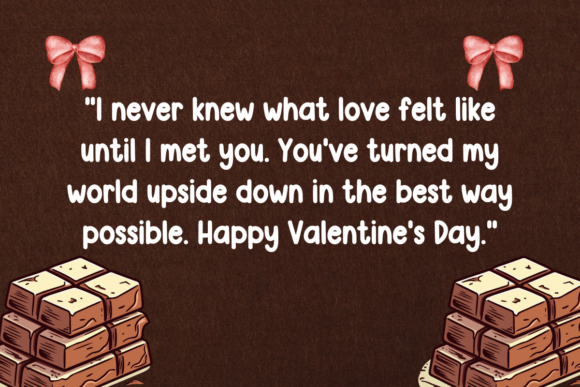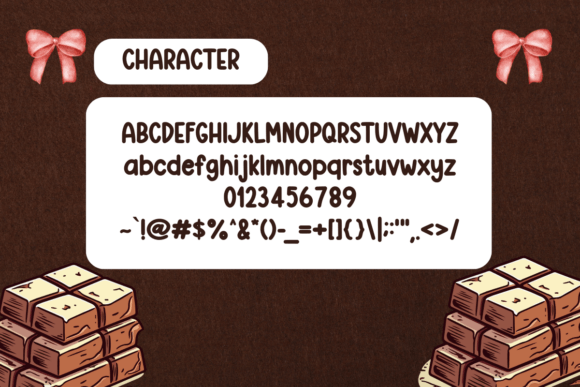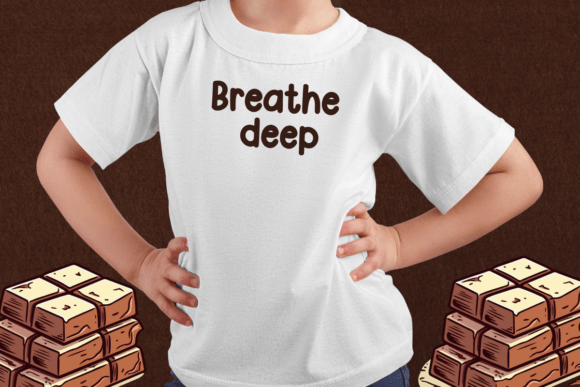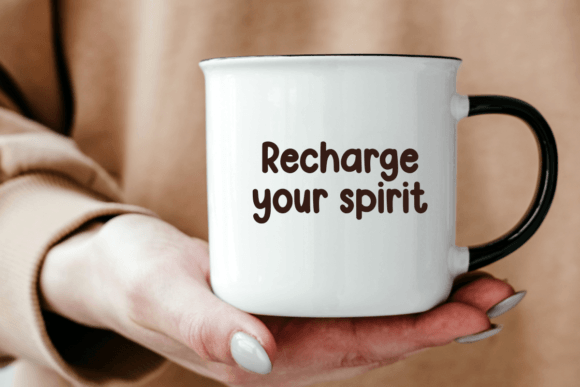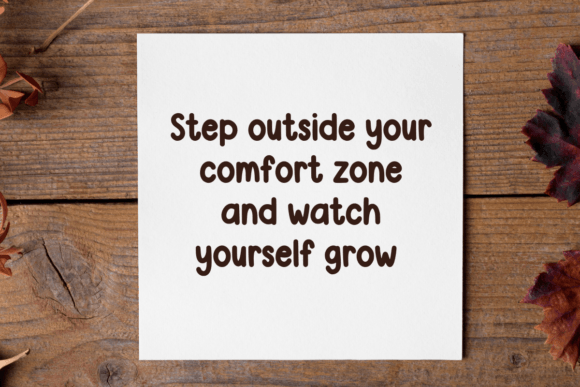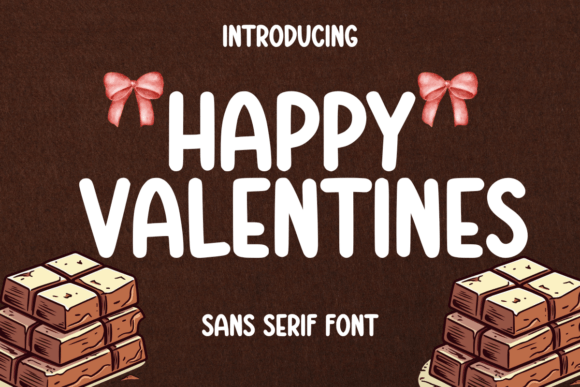
Happy Valentines Font: Add a Joyful Touch to Your Designs
Are you looking for a font that can add a playful and joyful touch to your designs? Look no further than the Happy Valentines font! This fun sans serif font is perfect for designers and crafters who want to create stunning and eye-catching projects. In this article, we’ll take a closer look at the Happy Valentines font, its features, and how you can use it to take your designs to the next level.
What is Happy Valentines Font?
Happy Valentines is a modern sans serif font that is designed to bring a smile to your face. Its clean and simple lines make it highly legible, while its playful curves and edges give it a unique and charming personality. This font is perfect for creating designs that require a friendly and approachable tone, such as Valentine’s Day cards, wedding invitations, and other celebrations.
Key Features of Happy Valentines Font
So, what makes Happy Valentines font so special? Here are some of its key features:
- Fun and playful design: Happy Valentines font has a unique and playful design that is sure to grab attention.
- Sans serif: This font is a sans serif font, which means it has no decorative lines or flourishes at the ends of the letters.
- Clean and simple lines: The font has clean and simple lines that make it highly legible.
- Highly versatile: Happy Valentines font can be used for a wide range of design projects, from digital designs to print materials.
How to Use Happy Valentines Font
Now that we’ve covered the features of Happy Valentines font, let’s talk about how you can use it in your designs. Here are some ideas to get you started:
- Valentine’s Day cards: Create stunning Valentine’s Day cards with Happy Valentines font. You can use it to create custom cards, gift tags, and even social media posts.
- Wedding invitations: If you’re a designer or a crafter who creates wedding invitations, Happy Valentines font is a great choice. It adds a playful and romantic touch to your designs.
- Digital designs: Happy Valentines font can be used for digital designs, such as social media graphics, blog posts, and even video titles.
- Crafting projects: If you’re a crafter who loves to create handmade projects, Happy Valentines font can be used for a wide range of projects, from scrapbooking to card making.
Tips for Using Happy Valentines Font
Here are some tips for using Happy Valentines font in your designs:
- Pair it with other fonts: Happy Valentines font can be paired with other fonts to create a unique and interesting combination. Try pairing it with a serif font for a contrasting look.
- Experiment with colors: Happy Valentines font looks great in bright and bold colors. Experiment with different colors to find the one that works best for your design.
- Use it for headings: Happy Valentines font is perfect for headings and titles. Use it to create eye-catching headings that grab attention.
In conclusion, Happy Valentines font is a fun and playful font that can add a joyful touch to your designs. Its clean and simple lines make it highly legible, while its playful curves and edges give it a unique and charming personality. Whether you’re a designer or a crafter, Happy Valentines font is a great choice for a wide range of design projects. So, why not give it a try and see how it can take your designs to the next level?